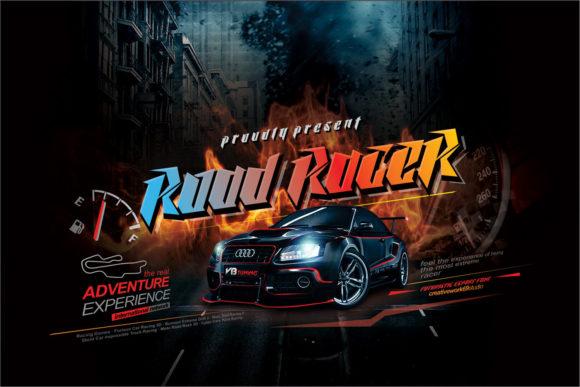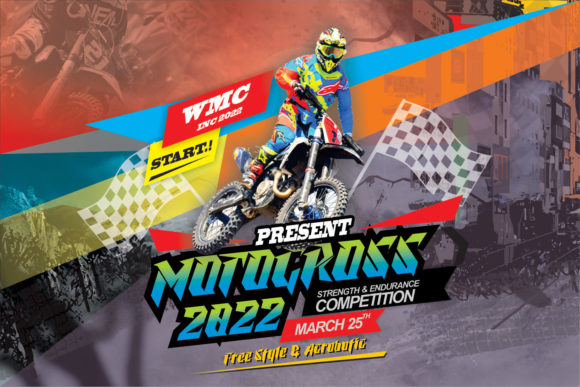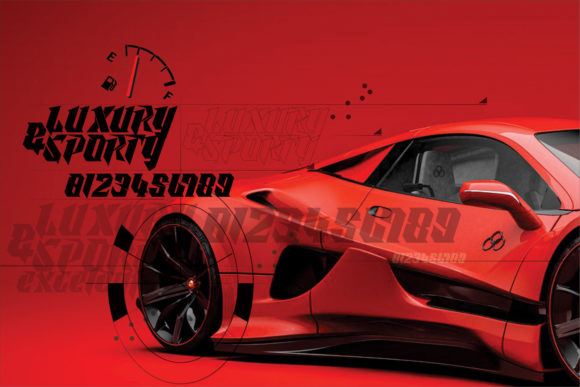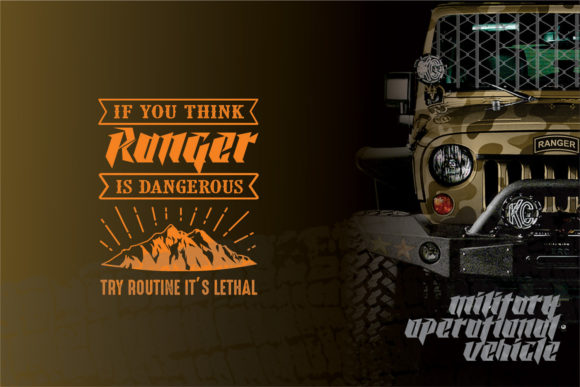
Road Racer Font: Bold Display Typography for Sporty Logo Design
About the Road Racer Font
Crafted with precision, the Road Racer Font is ready to bring your ideas to life. Road Racer is an esport style font that has a sporty character, very suitable for automotive design projects, sports and all products with a dynamic character.
Road Racer excels in headlines, logos, and short, impactful text for projects emphasizing speed and energy. It’s ideal for automotive branding, sports apparel, and gaming applications where a bold, dynamic statement is required. Avoid using it for body copy or extended text; its strong character makes it unsuitable for readability in large blocks of text.
For a balanced design, pair Road Racer with a clean sans-serif like Open Sans for body text, creating a contrast of boldness and readability. Alternatively, a geometric sans-serif like Futura would emphasize the font’s modern, sporty aesthetic. For a more playful feel, consider pairing it with a rounded sans-serif font.
Road Racer’s personality is undeniably bold and energetic, projecting a sense of speed and modern sophistication. It’s a powerful choice for brands wanting to convey a sense of dynamism and cutting-edge style.